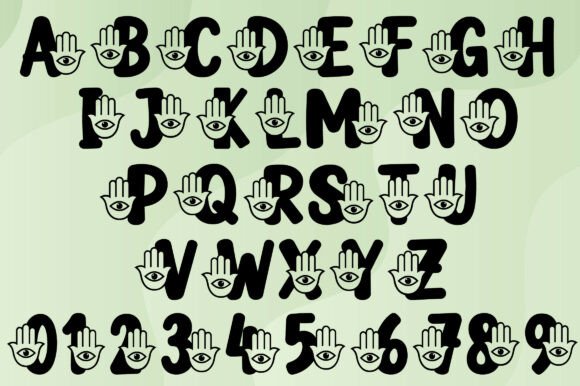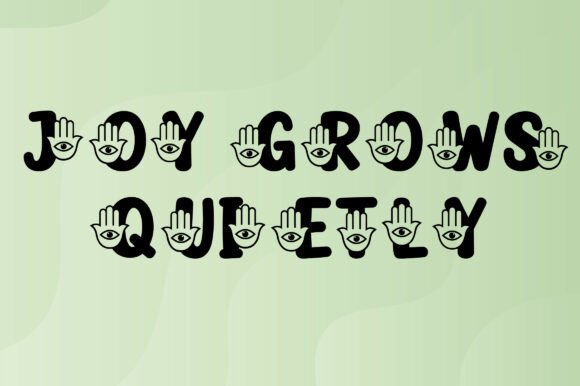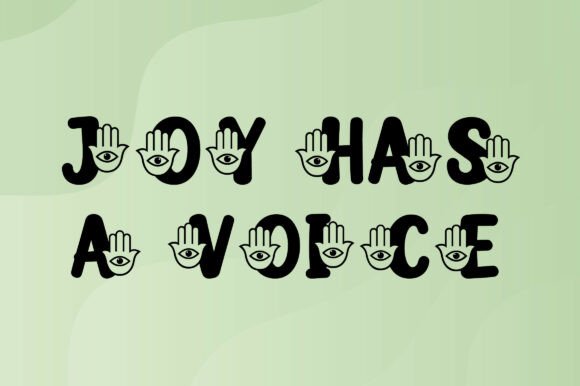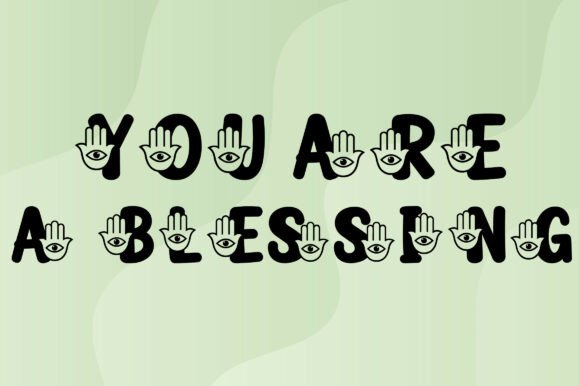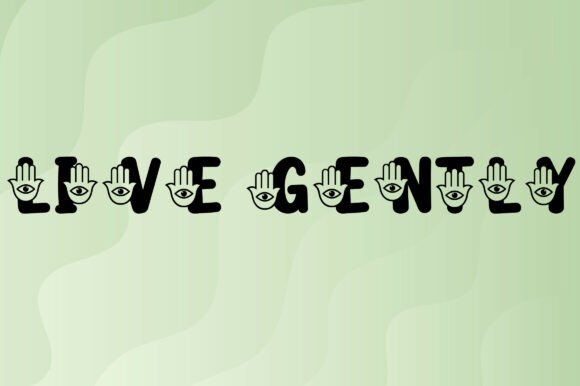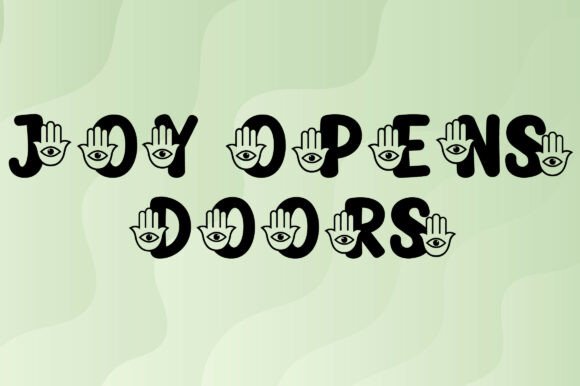
Introduction to Nannly Font
That’s where the enchanting Nannly Font comes in – a decorative typeface inspired by the mystical beauty of the Hamsa hand and symbolic spiritual designs. This unique font is a design resource that adds charm, positivity, and creative energy to any project, making it perfect for logos, branding, posters, packaging, invitations, social media graphics, and more.
As a valuable addition to any designer’s toolkit, the Nannly Font offers high-quality, versatile, and free download options, complete with uppercase English letters A–Z and numbers 0–9. With its transparent background and artistic style, this font is a must-have for any creative project, giving you endless opportunities to express your imagination with meaning and style.
Key Features of Nannly Font
- High-quality design for creative projects, ideal for use in various digital applications
- Perfect for designers looking for a unique and stylish font to elevate their creative project
Honest Review: Nannly Font
I recently came across the Nannly Font, and I must say it’s a great addition to my design resources. As a designer, I’m always on the lookout for high-quality fonts that can elevate my creative projects.
- ✨ Unique design: The Nannly Font has a distinctive style that’s perfect for those who want to add a touch of elegance to their designs.
- ⚠️ Limited font sizes: The font only comes in a few sizes, which may not be ideal for all design projects.
- ⚠️ Limited language support: I noticed that the font doesn’t support all languages, which could be a problem for designers working on international projects.
Use the transparent background feature to create stunning designs. Experiment with different font sizes and styles to achieve the desired look.
Nannly Font is ideal for creating logos, brochures, business cards, and social media graphics. Its high-quality design makes it perfect for any creative project that requires a professional touch.